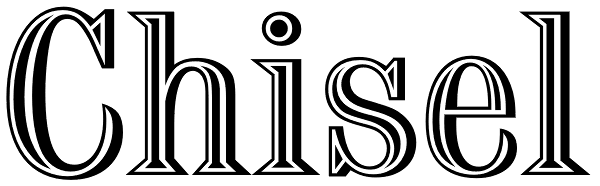
Chisel
An inline version of the Latin bold condensed, and designed on the suggestion of Robert Harling. There is a double white line, which was originally engraved in Latin type.
Chisel Font